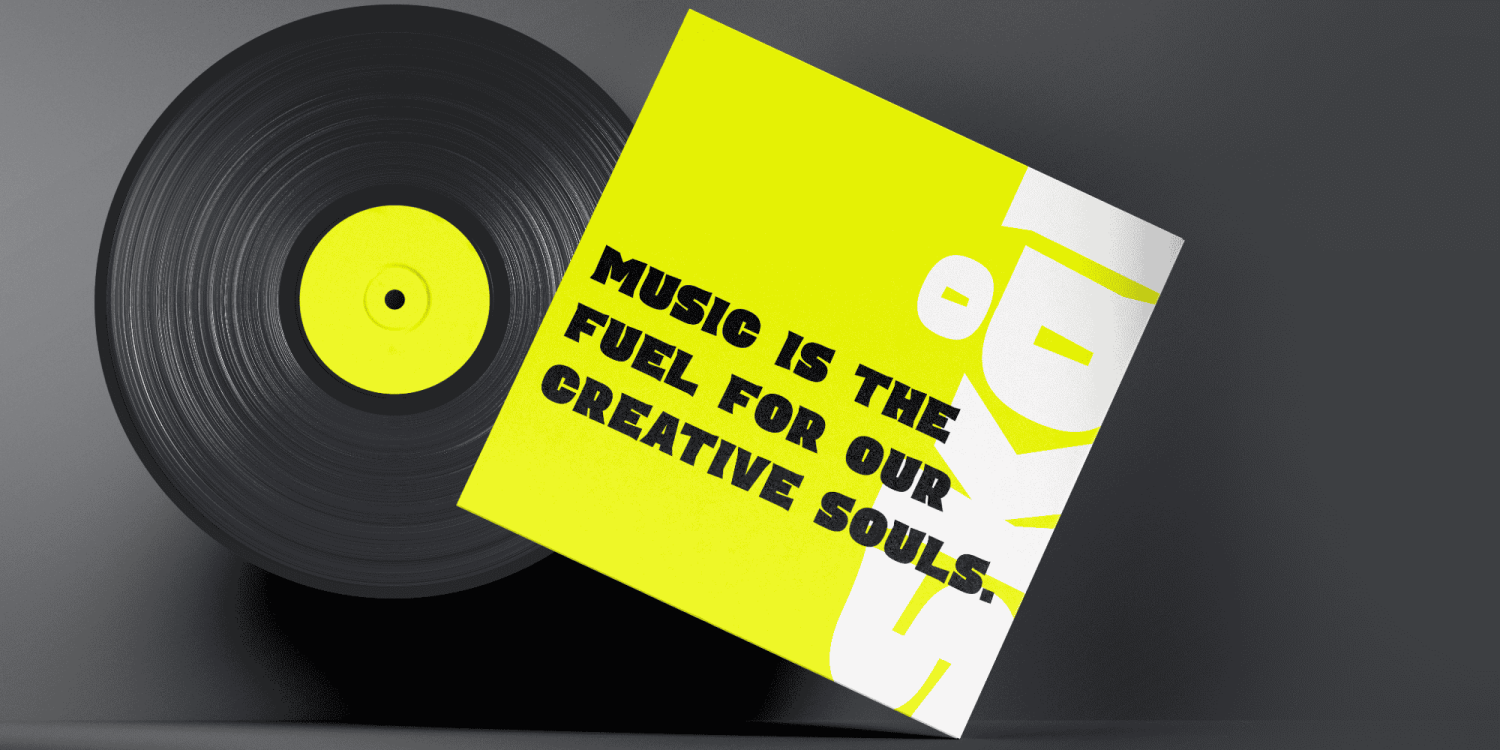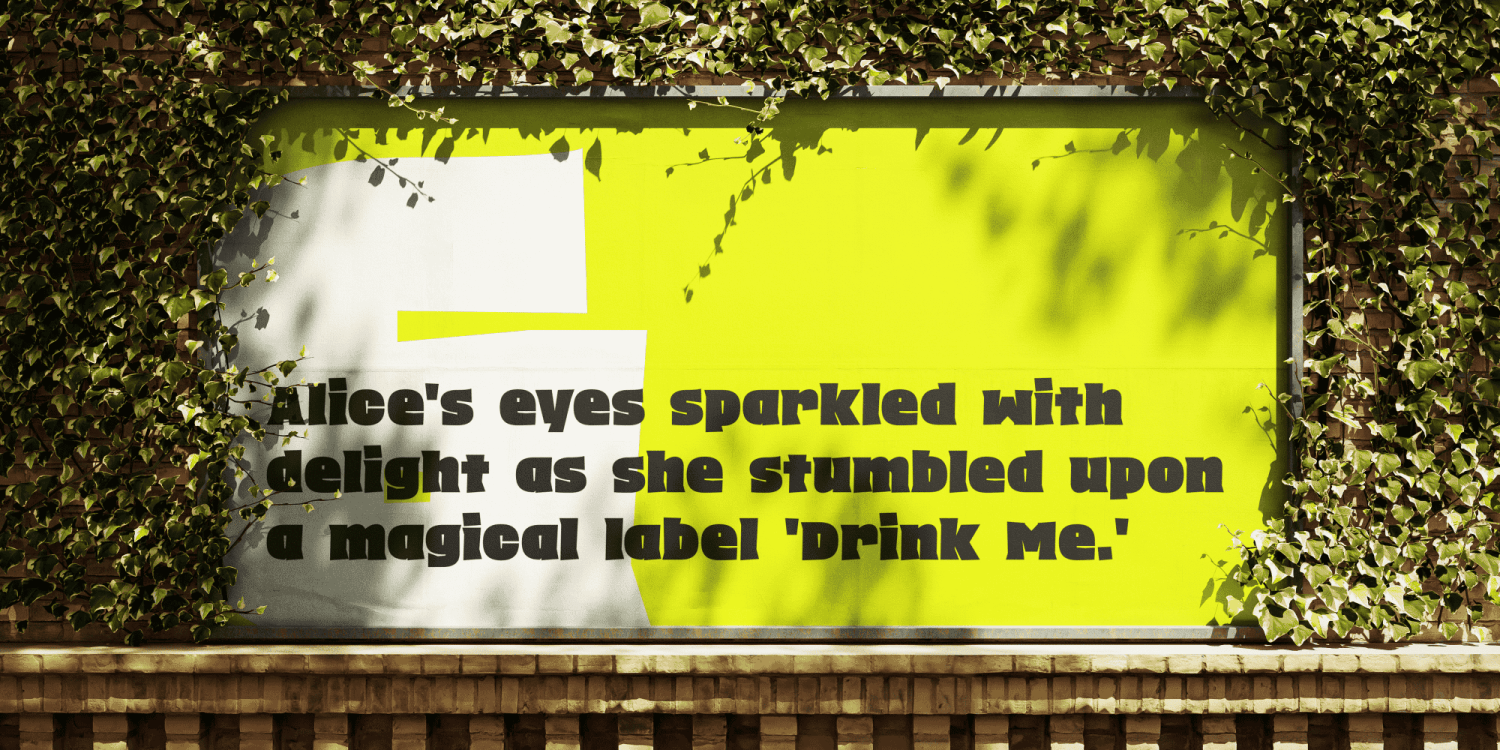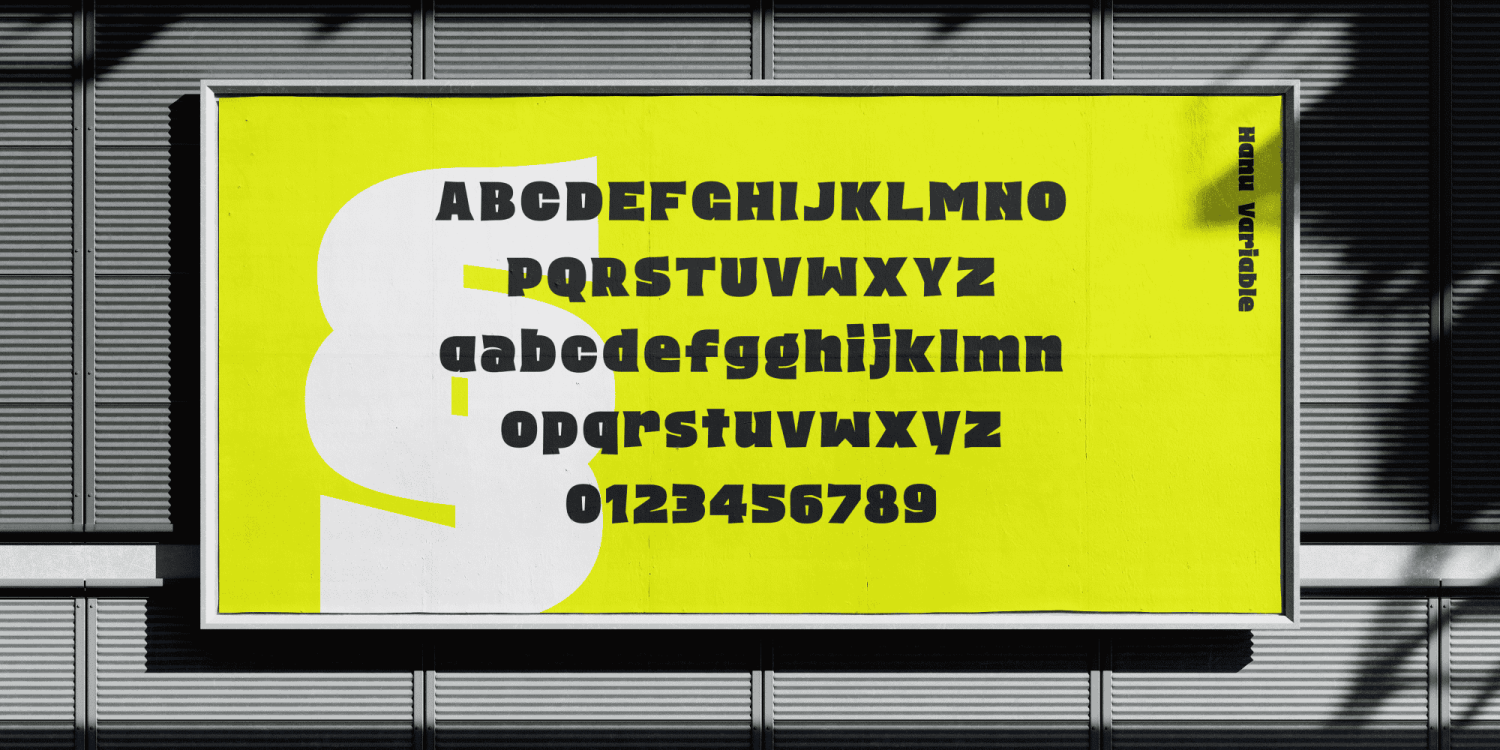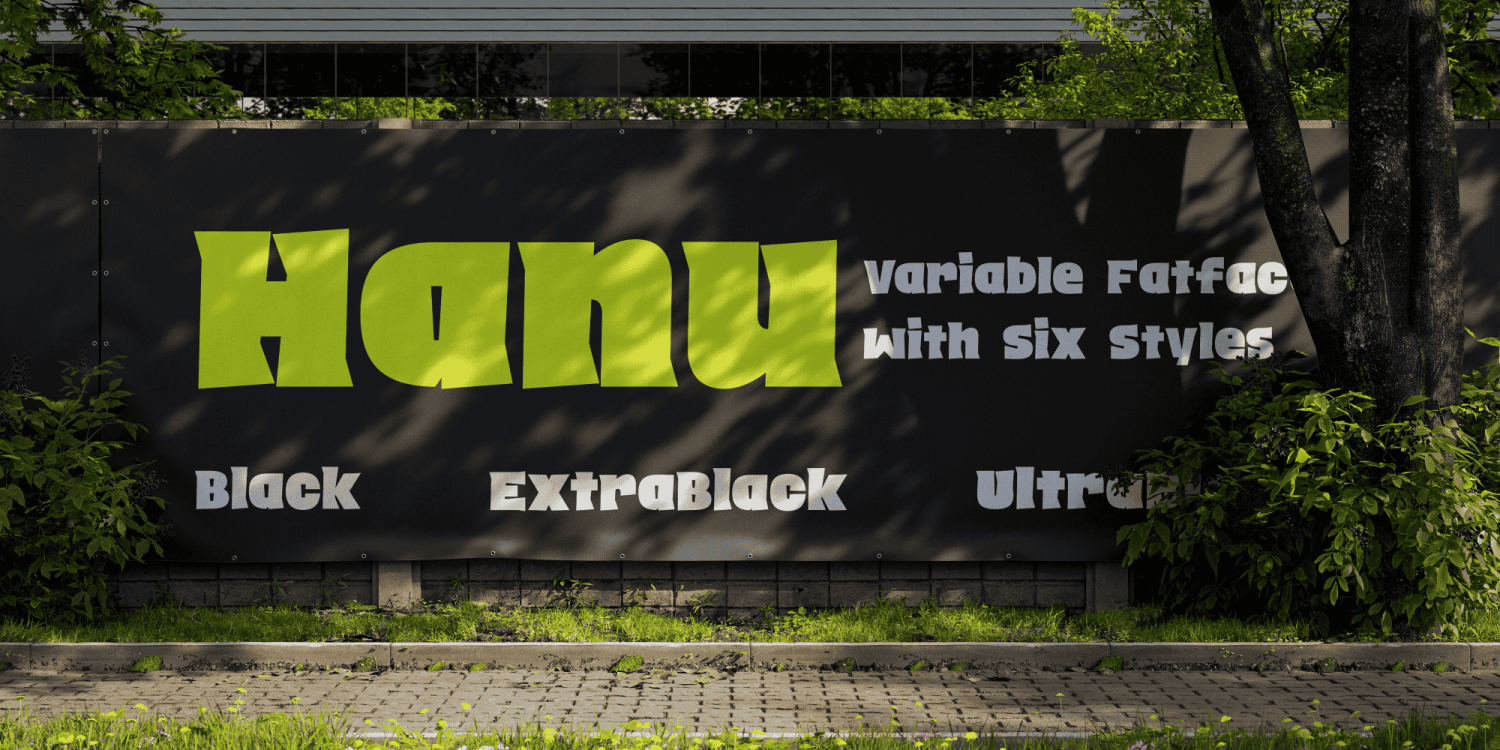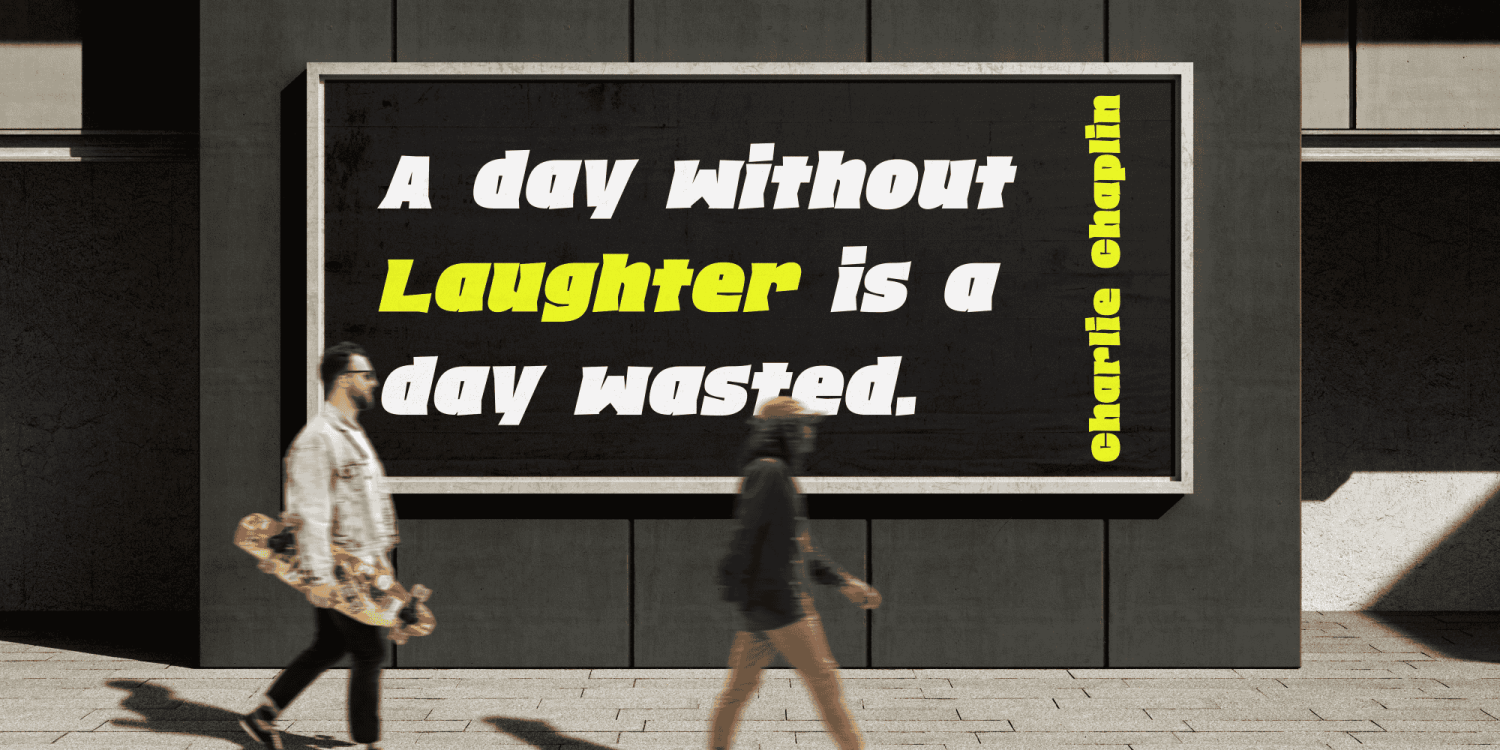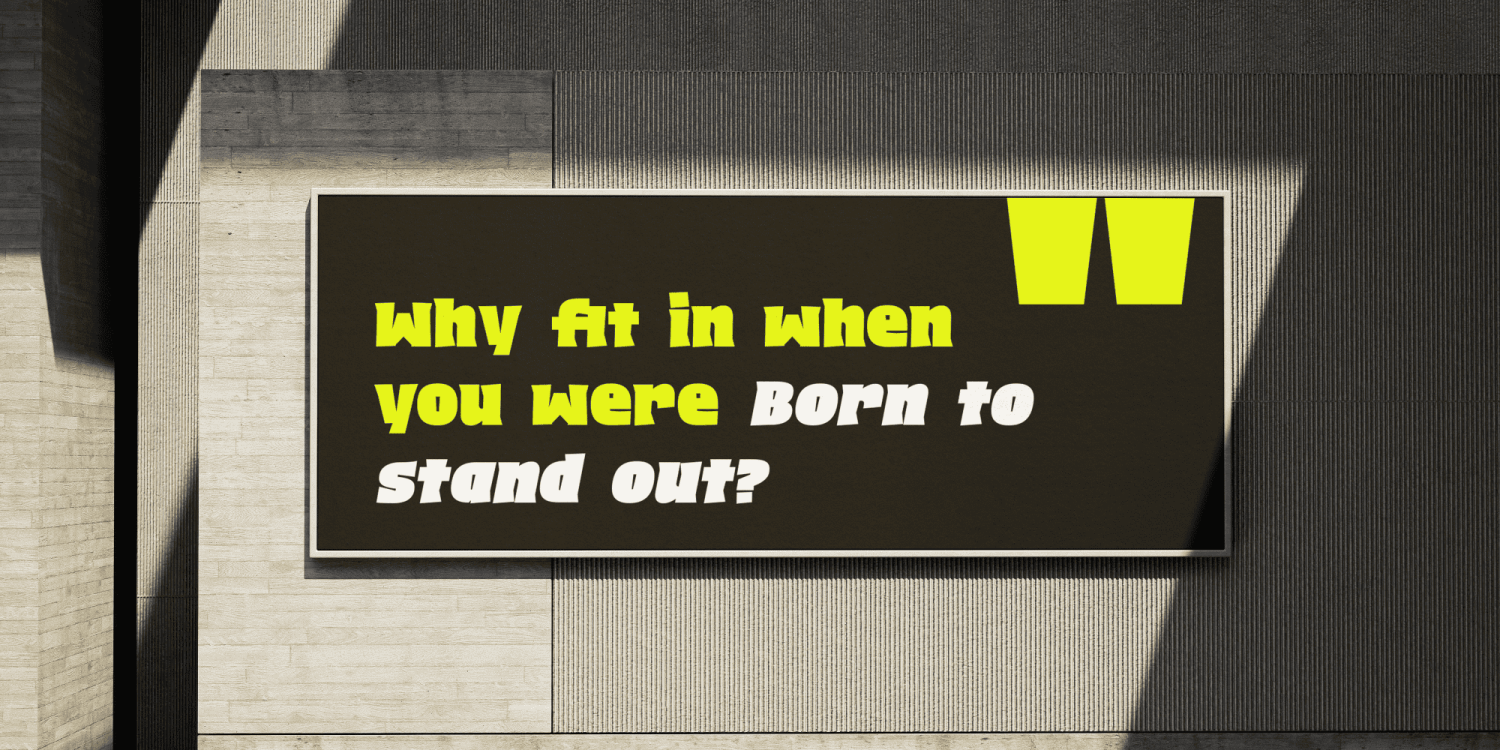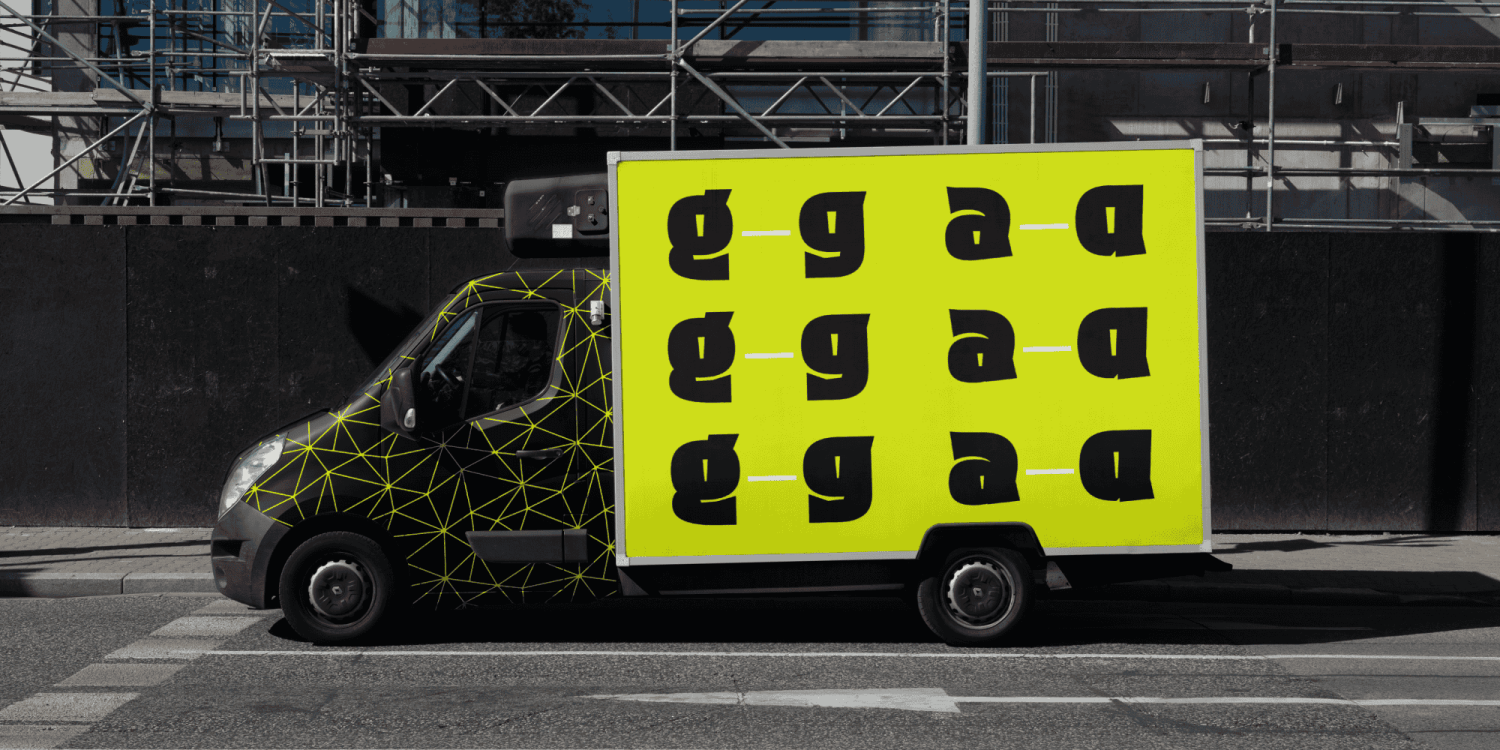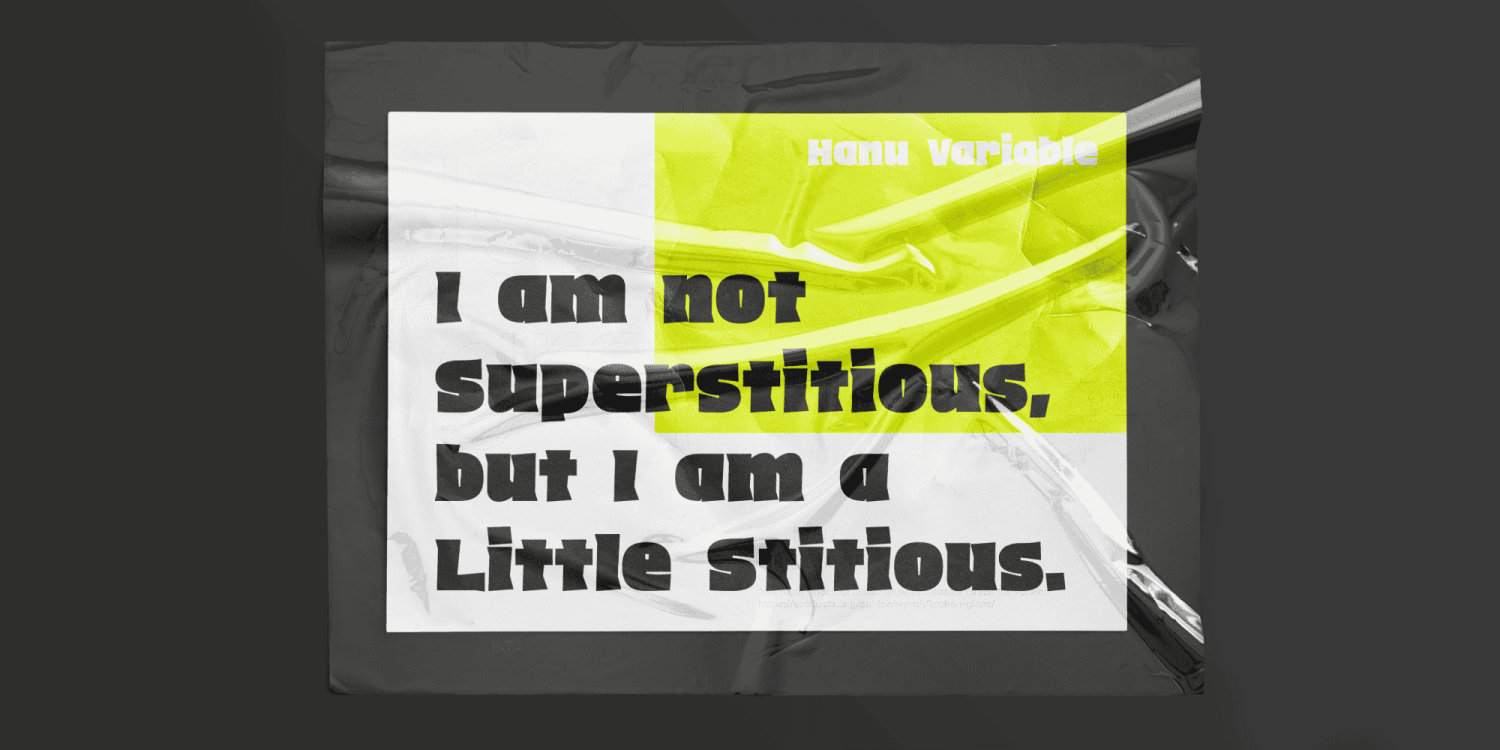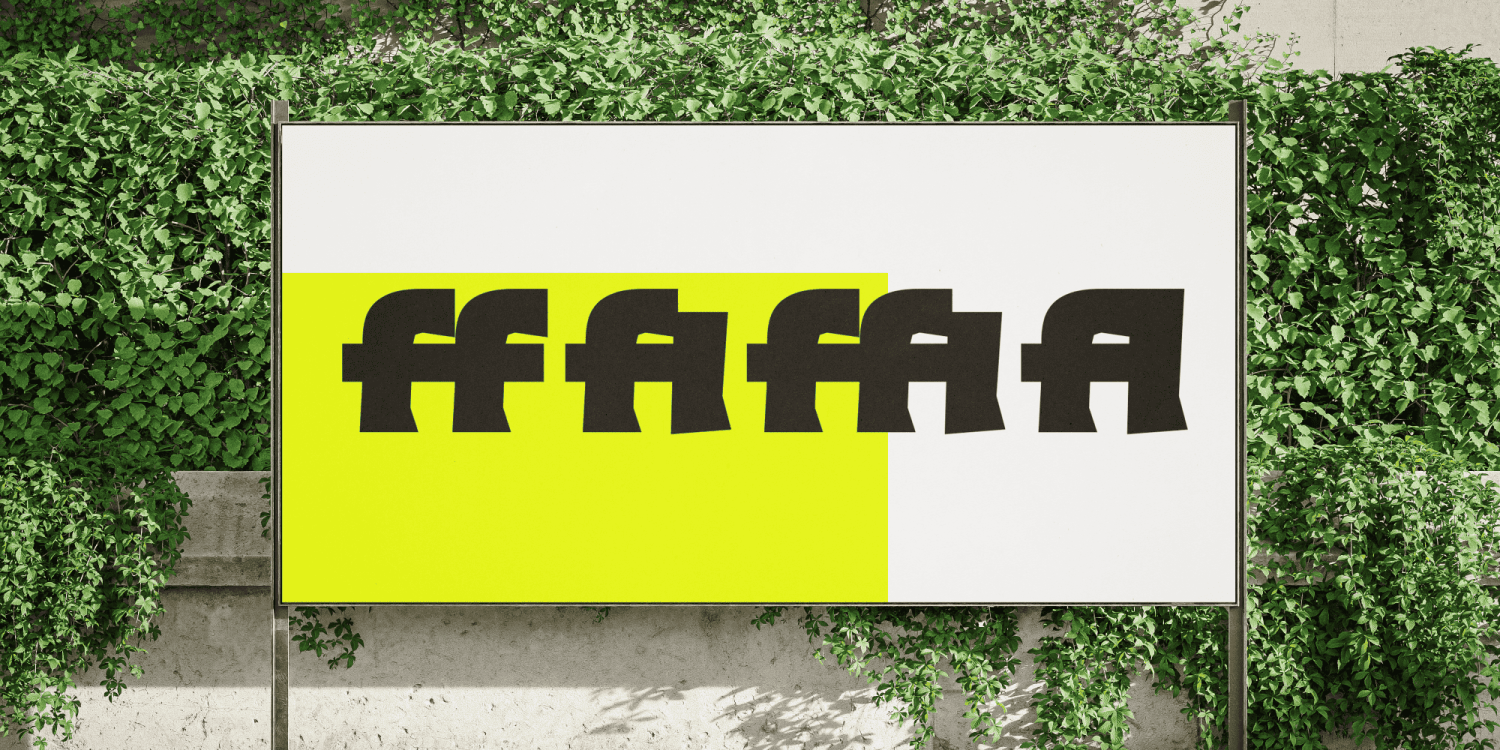
Hanu
About Hanu
Hanu is a display typeface that works well for particularly massive letters. It's peculiar but amusing in character. Hanu is the childlike abbreviation of the magnificent and gallant Hindu god Hanuman. It exhibits some serious personality while…